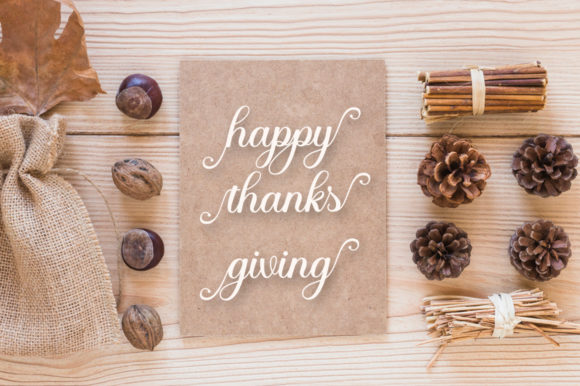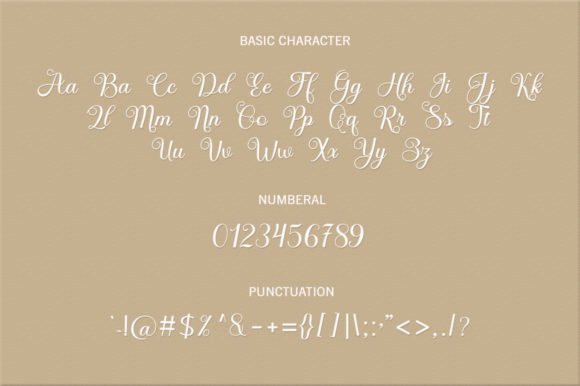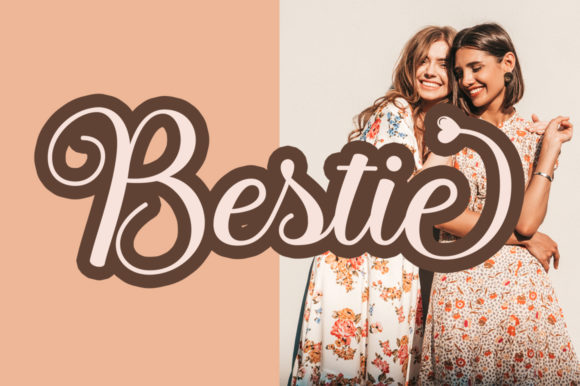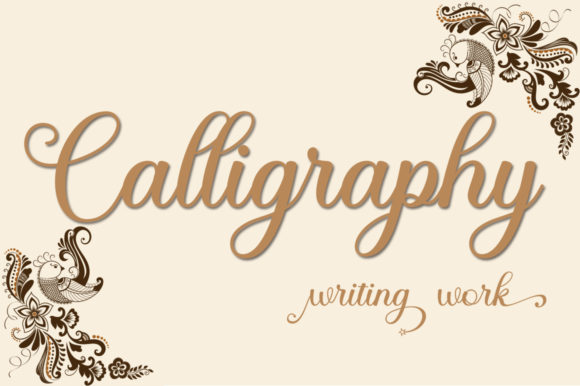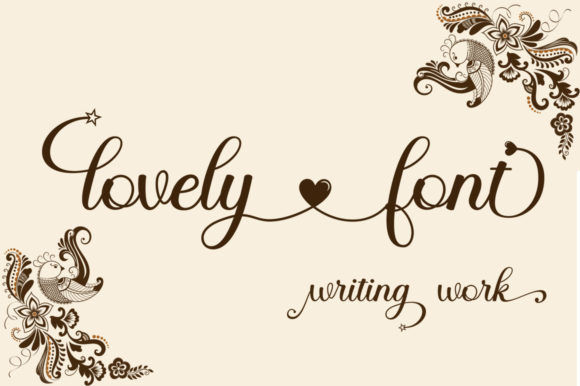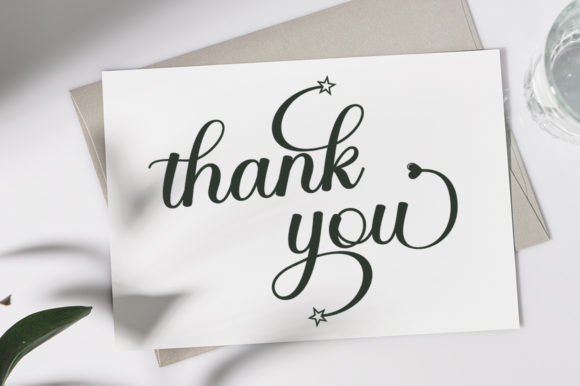
Introduction to Sabena Font
Have you ever been stuck in a creative rut, staring at a blank canvas with no inspiration in sight? For many designers, this is a familiar feeling. But what if I told you that the perfect solution is just a font away? Introducing the Sabena Font, a stylish and delicate script font that’s about to become your new go-to design resource.
Whether you’re working on a high-quality product packaging project, a creative branding campaign, or simply want to add a touch of elegance to your social media posts, the Sabena Font is the perfect tool for the job. Its versatility and sophistication make it an invaluable asset for designers looking to elevate their work.
Sabena Font Key Features
- High-quality font for creative projects, perfect as a design resource for professionals and hobbyists alike.
- Features a transparent background, allowing for seamless integration into various design elements and backgrounds.
- Unique characteristics include a clean, modern design and a wide range of typographic styles, making it perfect for various design projects.
Honest Review: Sabena Font
As a designer, I’ve had the chance to work with a variety of fonts, and I must say that Sabena Font has caught my attention. This high-quality font is perfect for any creative project that requires a unique and elegant touch.
Here are some of the things that work well with Sabena Font:
- ✨ Unique and elegant design: Sabena Font has a distinctive look that’s perfect for adding a touch of sophistication to your designs.
- ✨ Versatile: Whether you’re working on a logo, business card, or brochure, Sabena Font is a great choice.
- ⚠️ Limited character set: Sabena Font only comes with a limited character set, which may not be suitable for longer blocks of text.
Overall, I’m impressed with Sabena Font and would recommend it to designers who are looking for a high-quality, unique font for their creative projects.
Sabena Font
Tips for Getting the Most Out of Sabena Font
Use Sabena Font in combination with other design elements, such as images and graphics, to create a visually appealing design. Experiment with different font sizes, colors, and styles to find the perfect look for your project. Download Sabena Font for free and use it in your next creative project.
Sabena Font is perfect for a variety of creative projects, including social media graphics, logos, business cards, posters, infographics, presentations, reports, and documents. Its high-quality design and transparent background make it a great design resource for any project that requires a professional look.